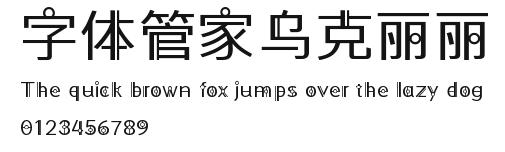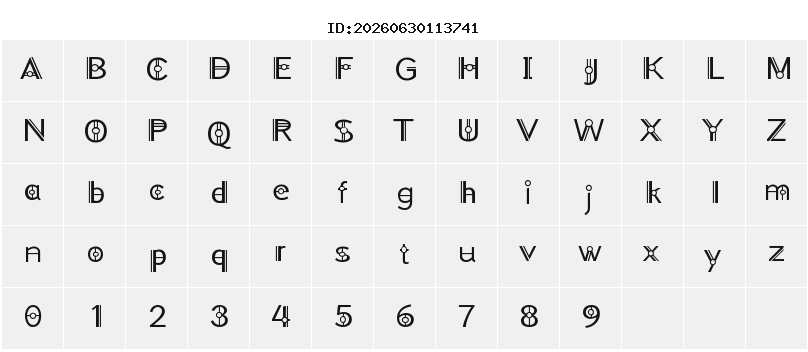
• Font Name: 字体管家乌克丽丽
• Font Style: 常规
• Full Font Name: 字体管家乌克丽丽
• PostScript Name: Aamusical
• Description: Aamusical is a fantastic font with excellent features designed for user interfaces and electronic communications.
About 字体管家乌克丽丽.ttf
字体管家乌克丽丽.ttf is a modern, elegant sans-serif font designed for ultimate readability and visual harmony. Perfect for branding, headlines, web design, and print materials.